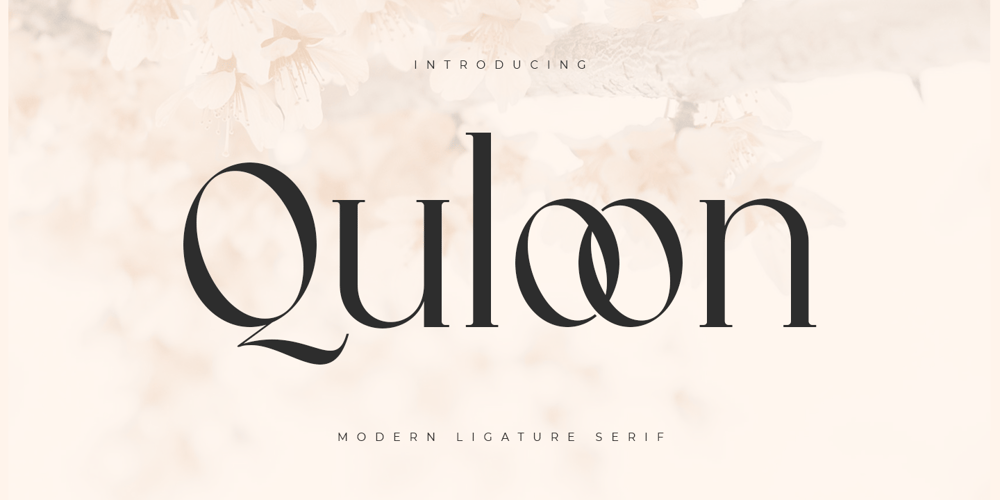
Quloon Style
Quloon Style font
Quloon Style Font Family was designed by Zamroni Hamzah and published by Sensatype Studio. Quloon Style contains 1 styles and family package options. New Ligature font that we created special for modern projects with extra ligature and alternates in unique shape will be ready to add value of your brand. It so nice to leverage designer or product owner that need solutions to make their design look more elegant and luxury. And specially for Quloon font, We prepared any ligatures and any alternate characters to help you create unlimited variations for your creative needs.Quloon modern ligature font ready with: Any options to get creative variations (combination of Alternate and Ligatures) Preview as a inspirations that you can do with Quloon font Ready with Lowercase and Uppercase characters Wish you enjoy our font. ๐Ÿ™‚